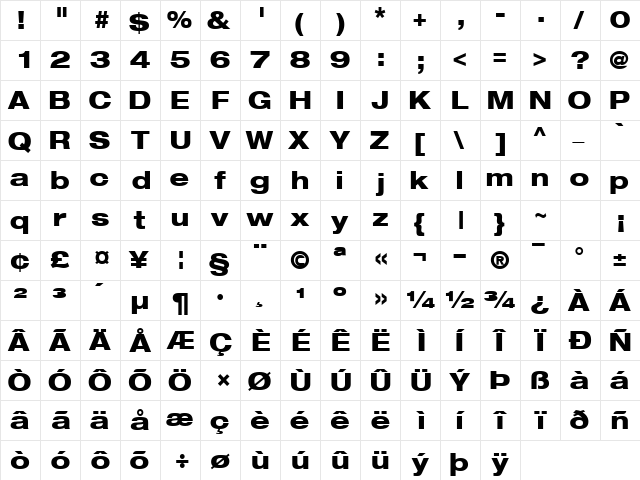
ContextRepriseBlackExpSSK Regular
ContextRepriseBlackExpSSK takes a measured approach to typography — its balanced proportions and neutral character make it a reliable workhorse for both digital and print work.